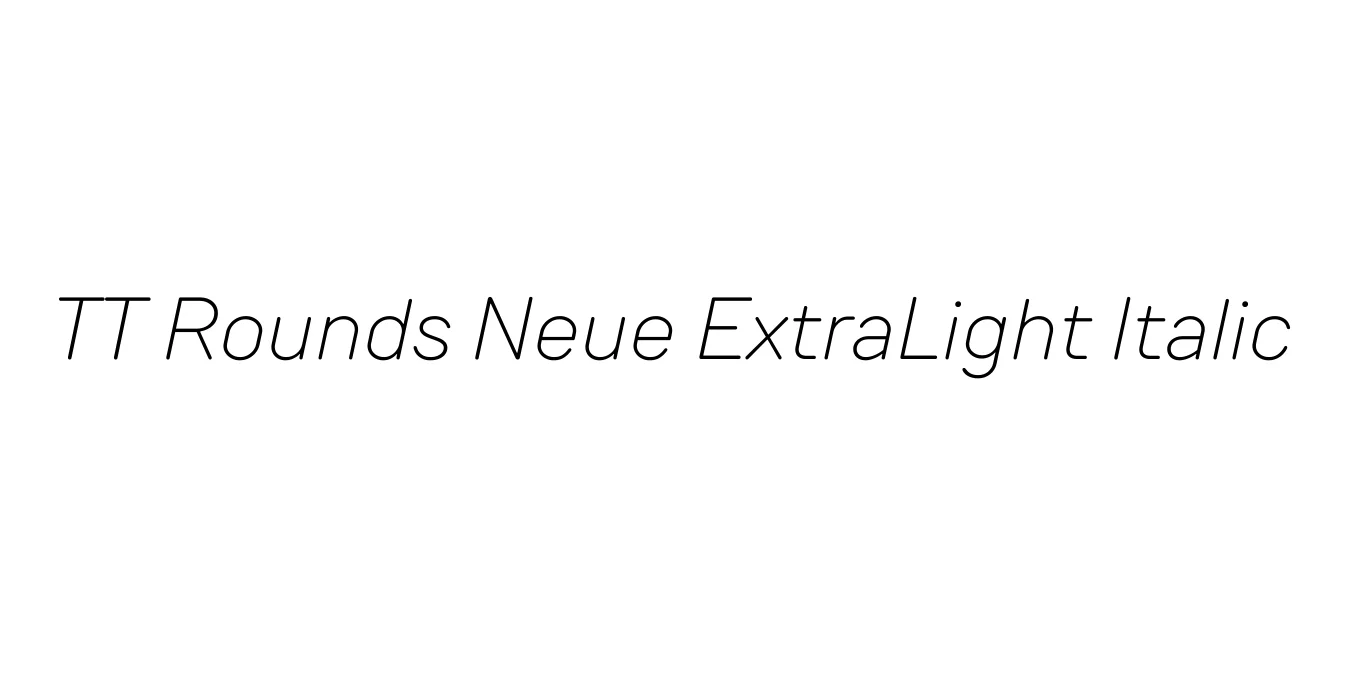
TT Rounds Neue ExtraLight Italic
Designed by TypeType Team
| Category | Rounded Sans Serif |
| Similar Fonts | VAG Rundschrift, Proxima Soft, Nunito, Arial Rounded |
TT Rounds Neue ExtraLight Italic is a sophisticated evolution of the original TT Rounds family, meticulously crafted by the TypeType foundry. This modern reimagining focuses on refined geometry and a more balanced distribution of weight, resulting in a typeface that feels both contemporary and approachable. The ExtraLight Italic variant offers a delicate, airy aesthetic, combining the soft, friendly nature of rounded terminals with the dynamic energy of a carefully sloped italic design.
This typeface is part of a comprehensive font system designed to meet the rigorous demands of modern digital and print environments. With its geometric sans-serif foundations and humanist touches, it provides exceptional legibility even at smaller sizes. The ExtraLight weight specifically brings a sense of elegance and lightness to layouts, making it a favorite for high-end editorial projects, luxury branding, and minimalist user interfaces where a gentle, sophisticated tone is desired.
TT Rounds Neue ExtraLight Italic Best Uses
Ideal for pull quotes, captions, and elegant subheadings in digital and print magazines.
Perfect for minimalist headers and introductory text on lifestyle or tech websites.
Excellent for wellness, beauty, or luxury brands seeking a soft yet professional identity.
Great for subtle, sophisticated messaging in high-end marketing campaigns.